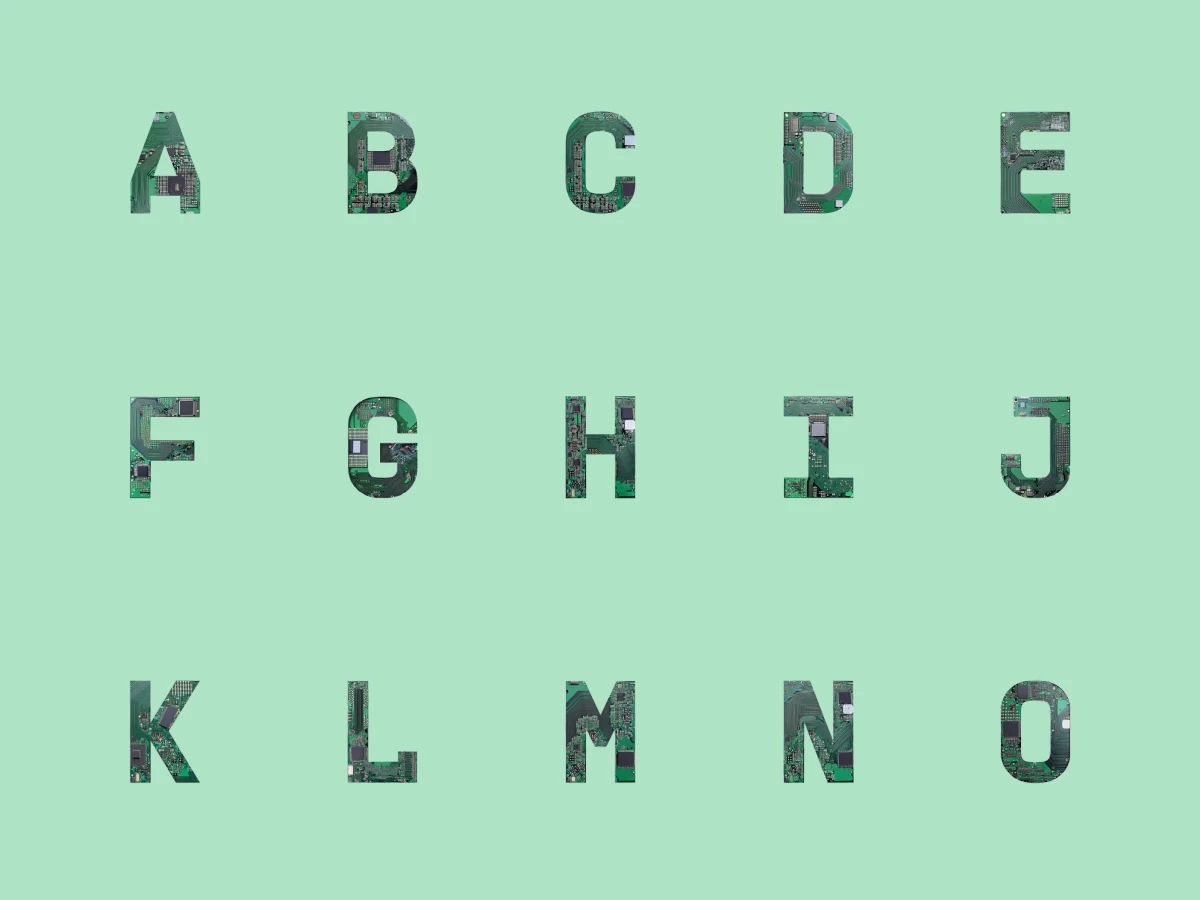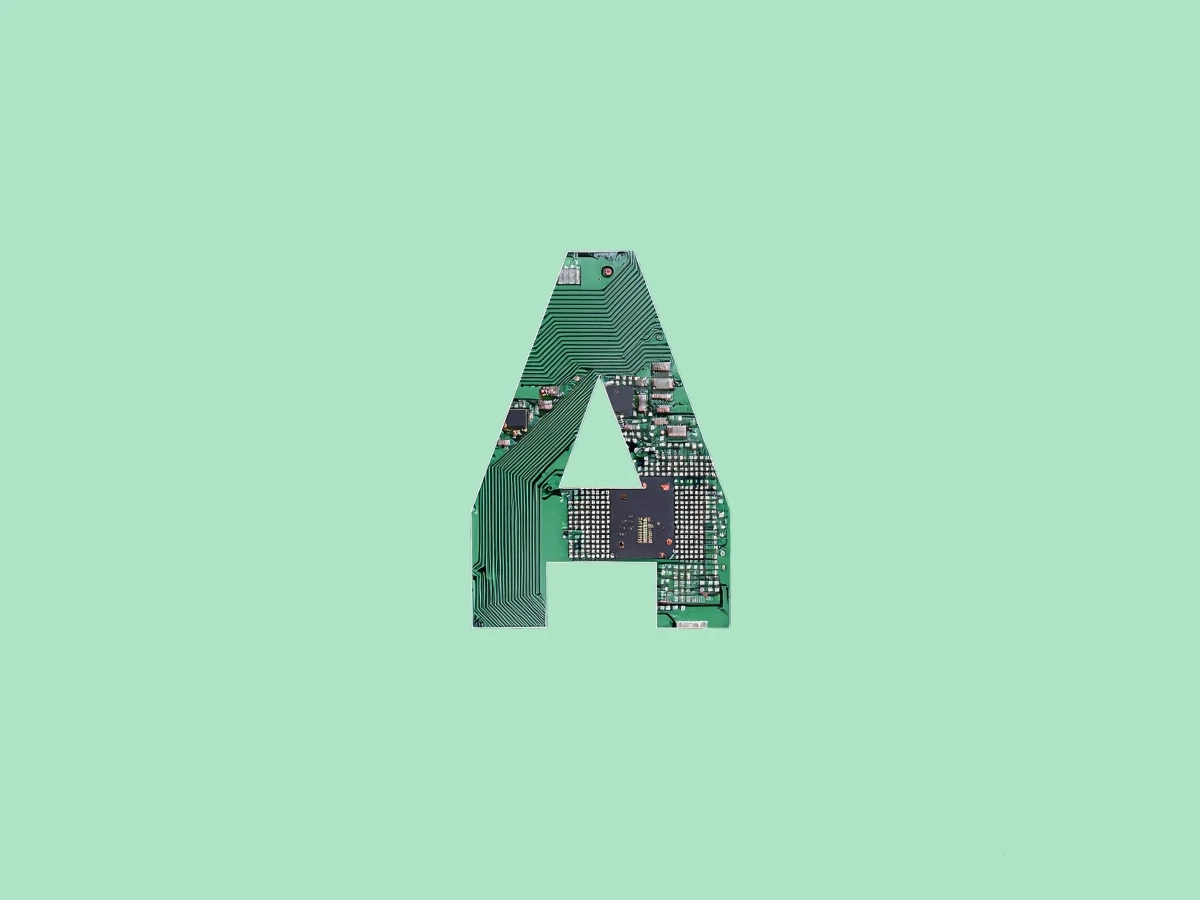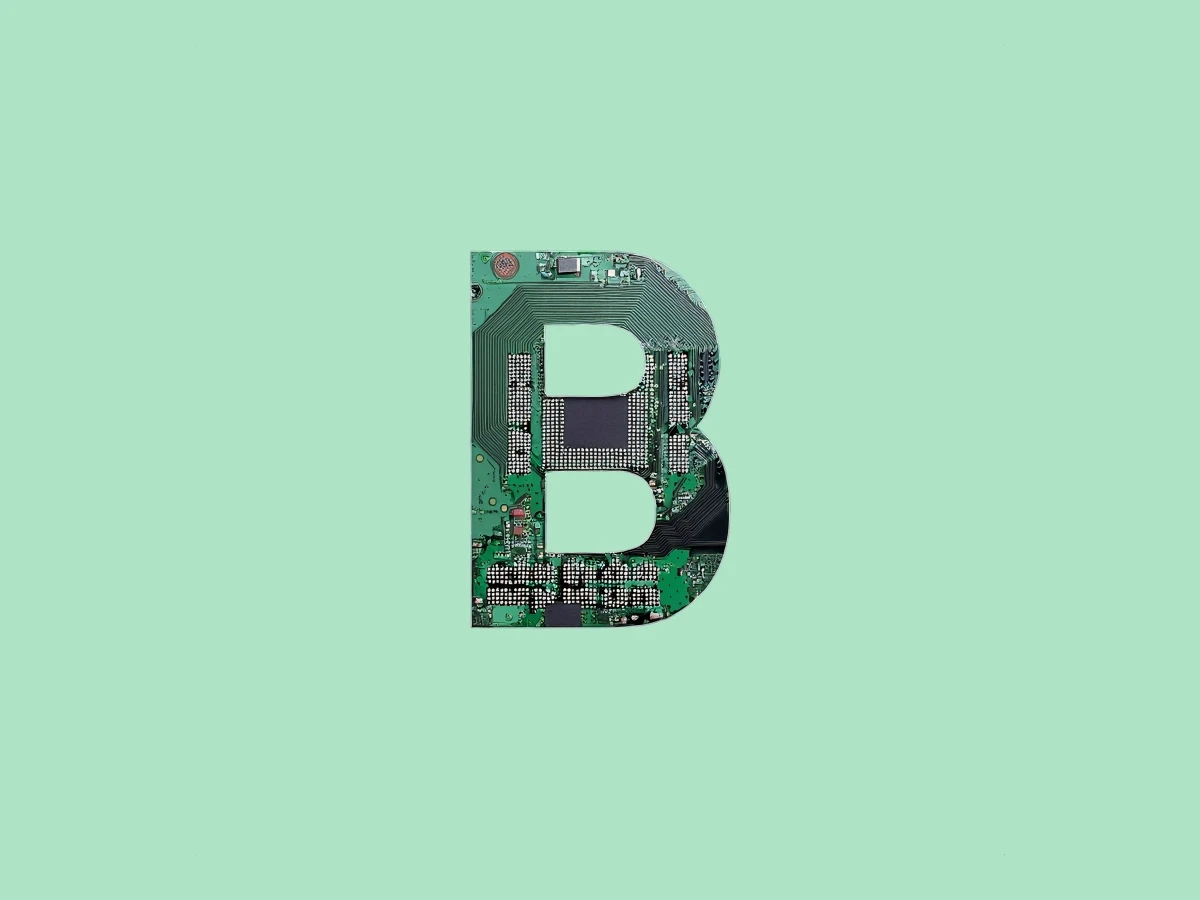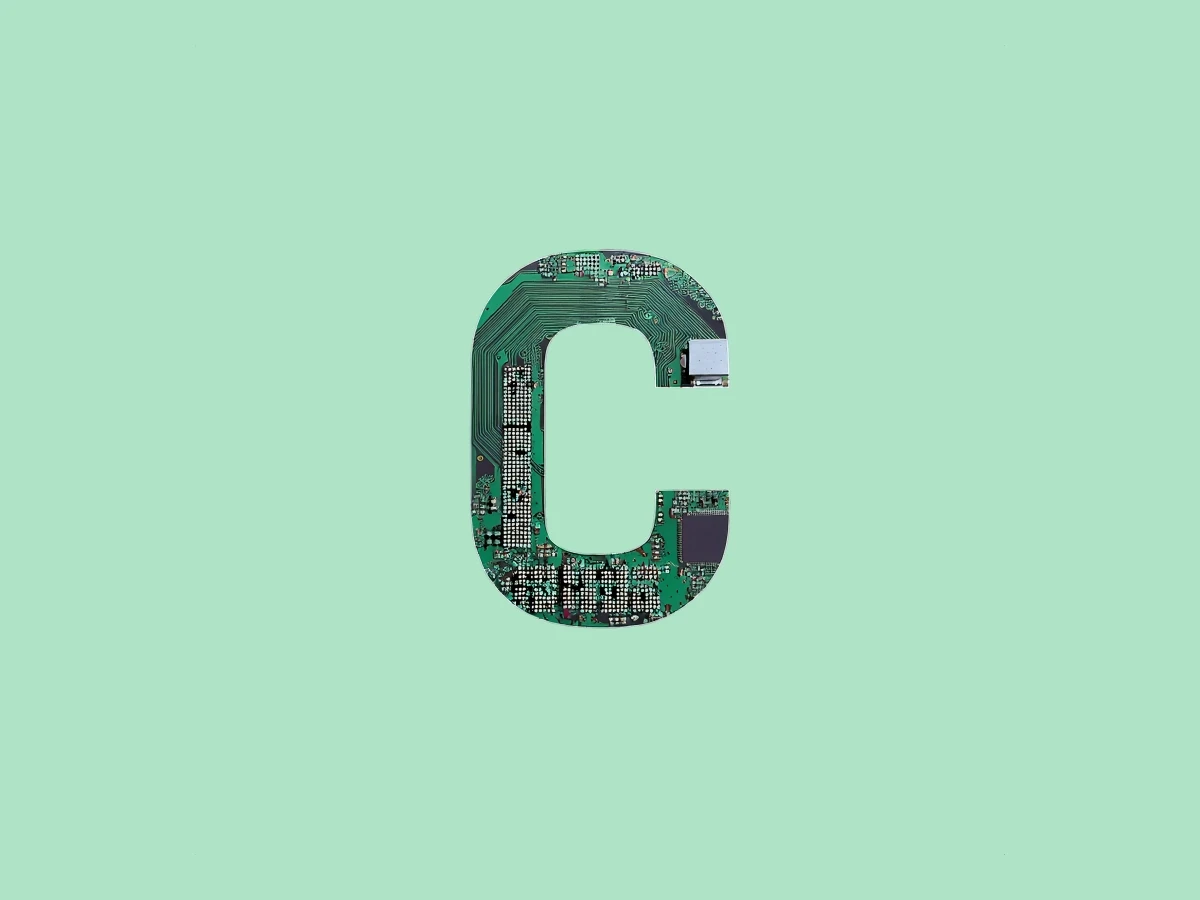
Step back in time to the era of clunky monitors, buzzing hard drives, and green-on-black text. PC Terminal is a throwback to the raw, unfiltered world of early computing. It’s where nostalgia meets utility, combining the gritty aesthetic of old PCs with monospaced letterforms that scream retro cool. This theme is perfect for when you want to channel that no-nonsense, tech-savvy vibe. Whether you’re coding, designing, or just reminiscing, it’s a nod to the origins of the digital revolution.